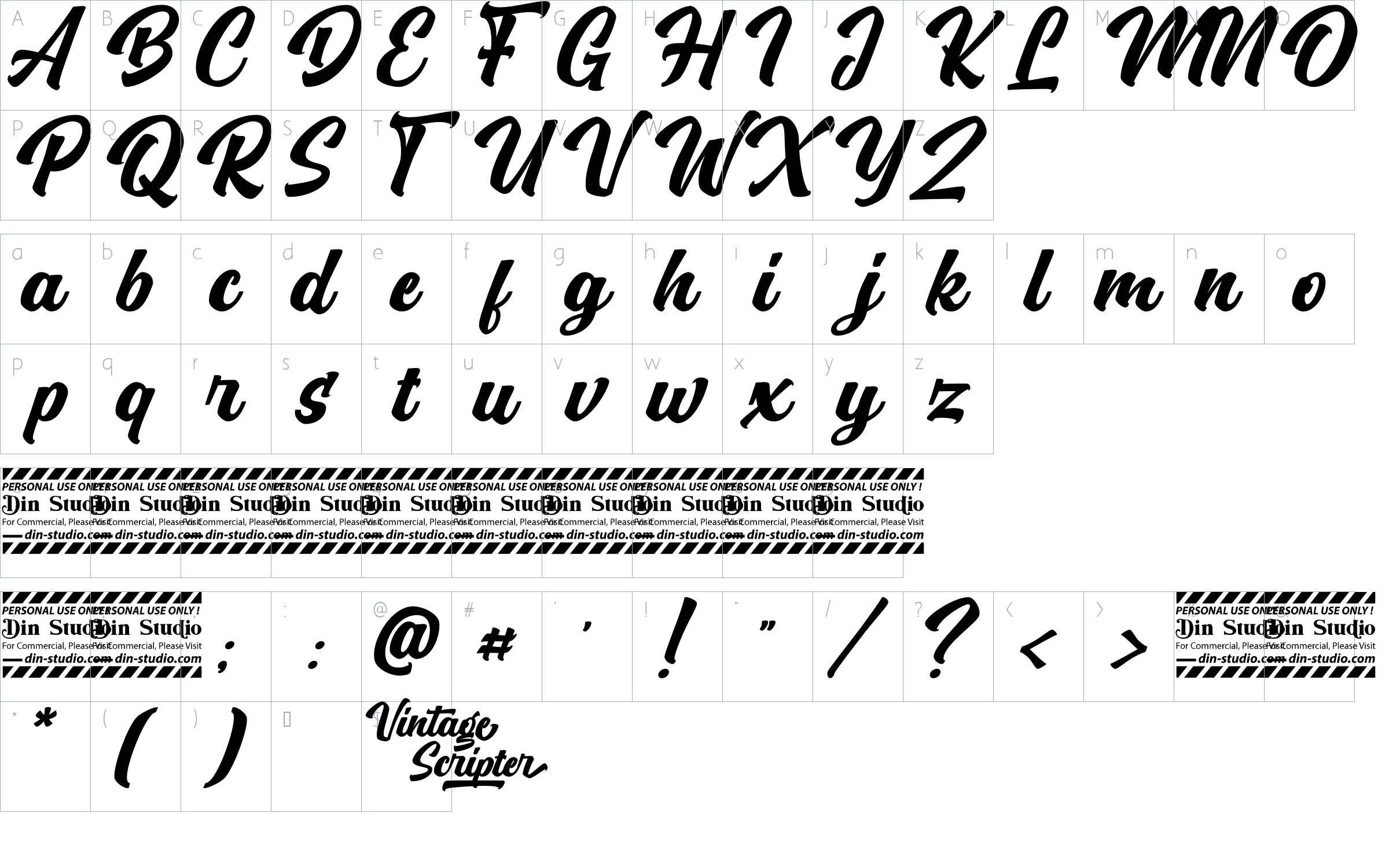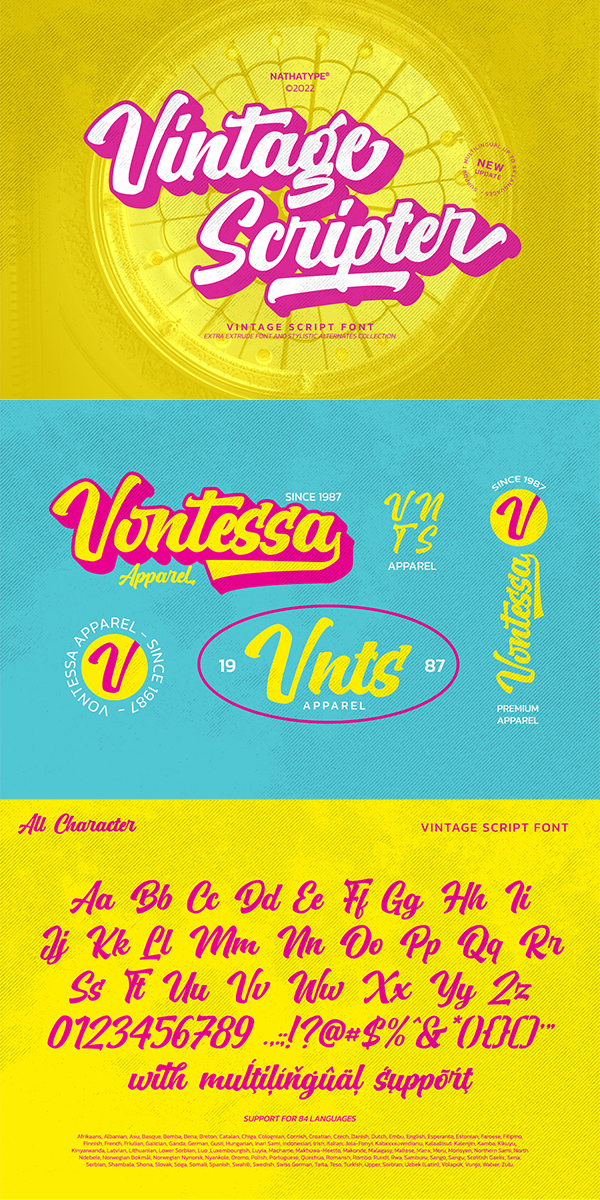
Vintage Scripter Font
About Vintage Scripter
Vintage Scripter- A Script Font
Vintage Scripter is a flowing and fun font. This font features thick and angular letters that easy on the eyes and nice to look while it’s also easy to read. Vintage Scripter becomes more special with extruding version option. It has a beautiful and balanced character, making it suitable for a variety of purposes. such as posters, logos, product packaging, branding, titles, signs, labels, mugs, book covers, quotes, and others.